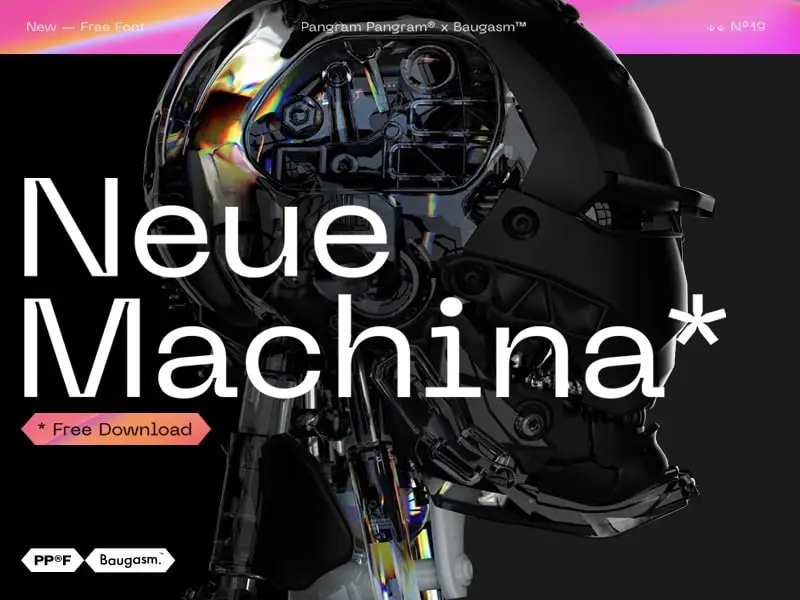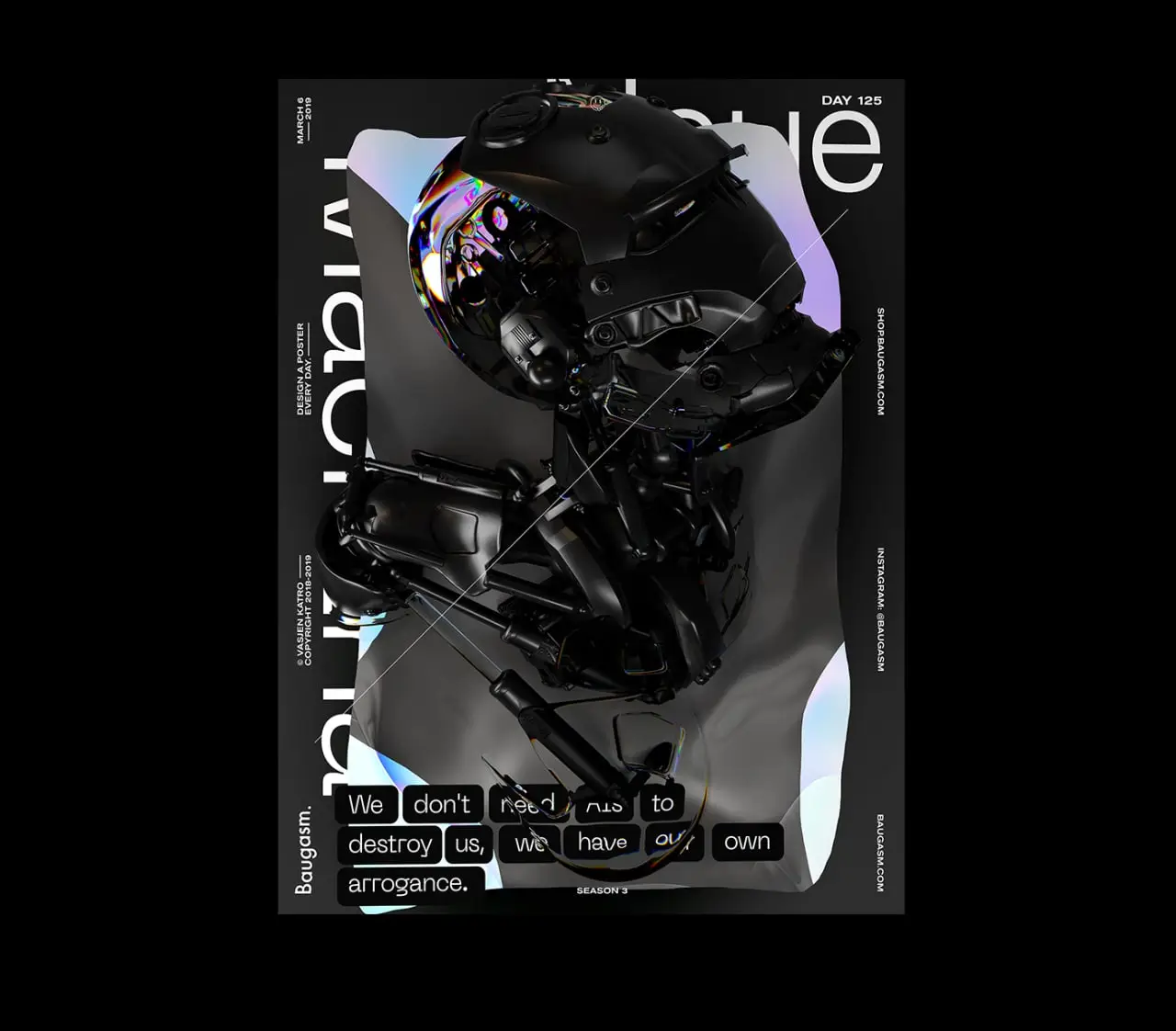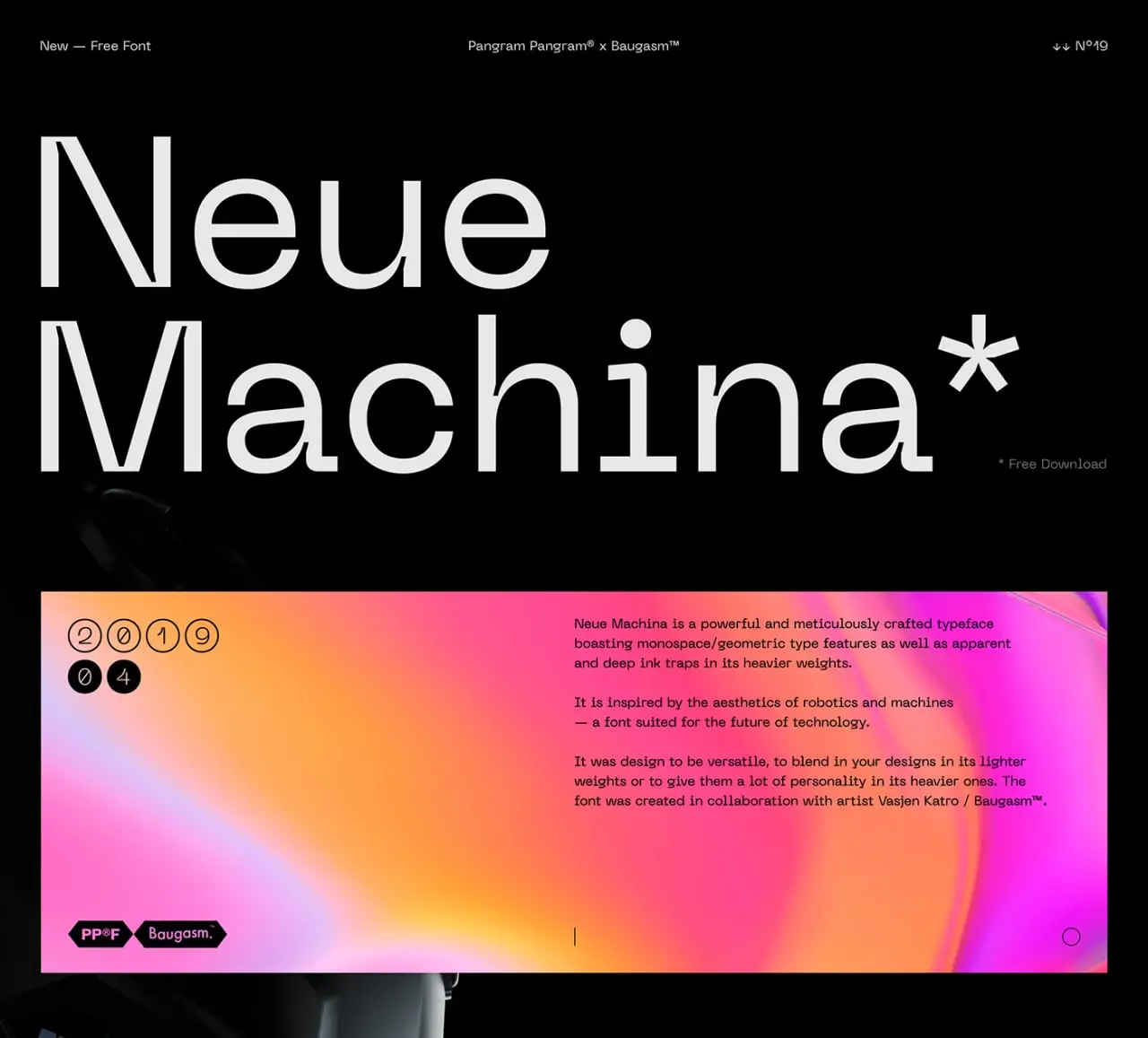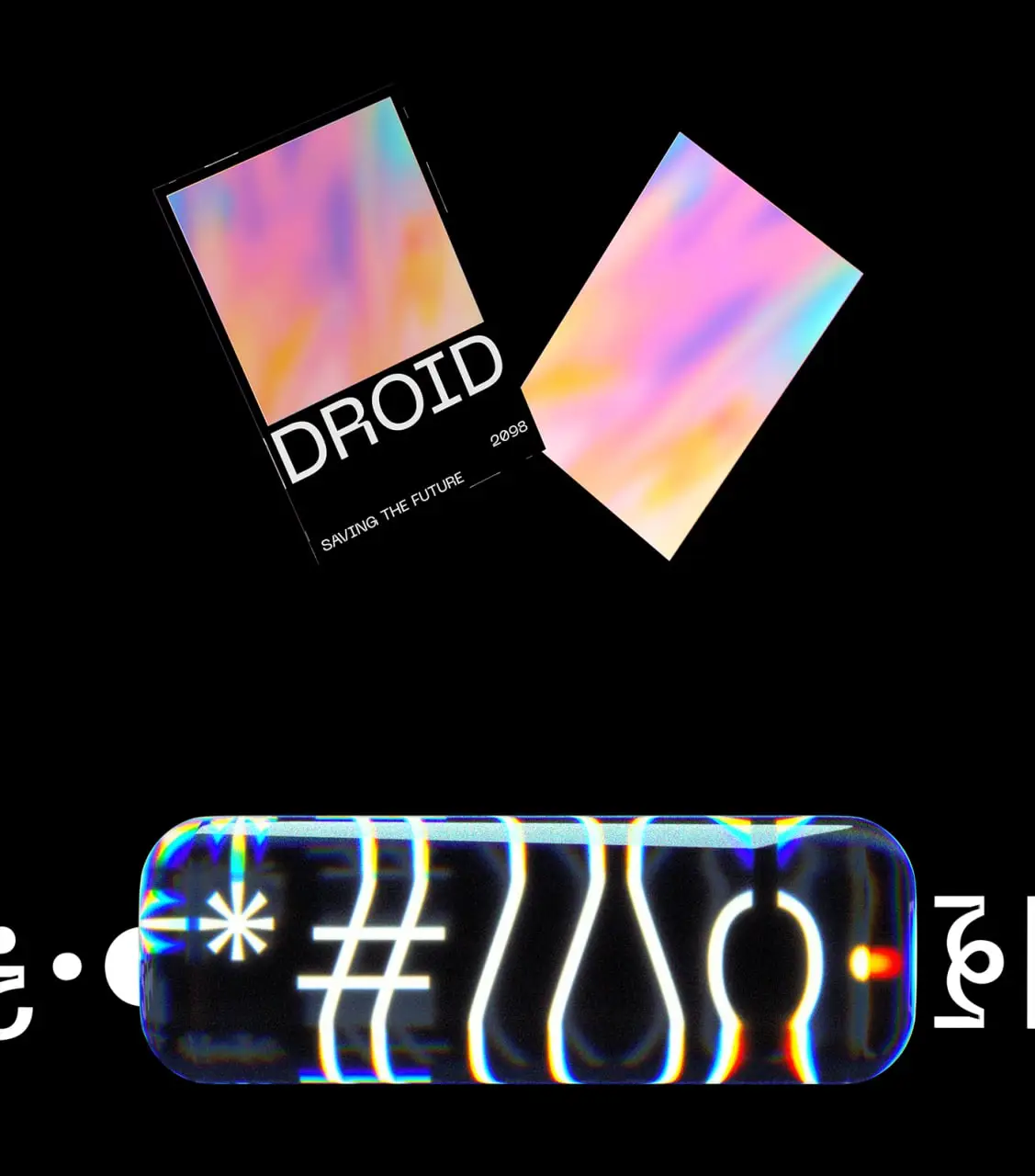
Pangram Foundry-Neue Machina Typeface (Free For Personal Use)
The Pangram Foundry-Neue Machina Typeface is a modern and versatile font designed for a variety of applications. With its clean lines and geometric shapes, this typeface is perfect for both digital and print projects.
• Weights: Light, Regular, Medium, Bold
• Ideal for branding and logo design
• Great for web and UI design
• Perfect for print materials like brochures and posters